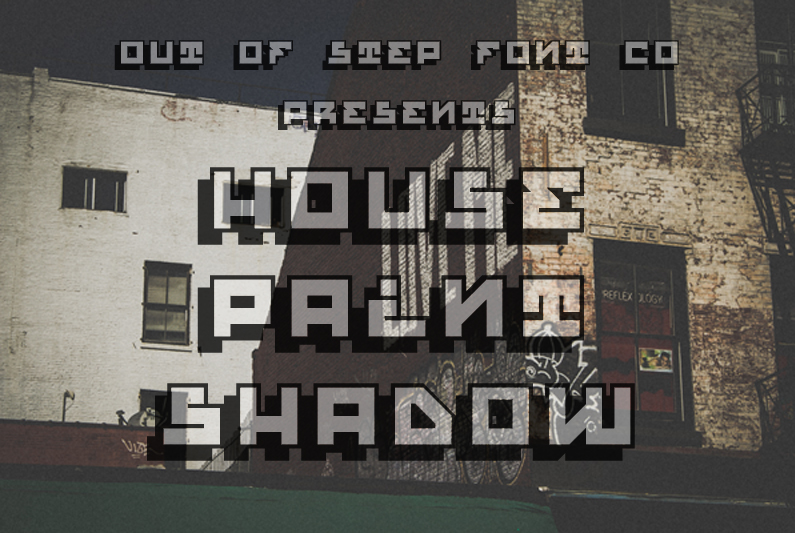
Font name: | House Paint Shadow |
Author: | Out of Step Font Company |
Note by Out of Step Font Company | |
This is a flat square house paint graffiti font with a floating shadow. Includes number set and extended latin character support. |